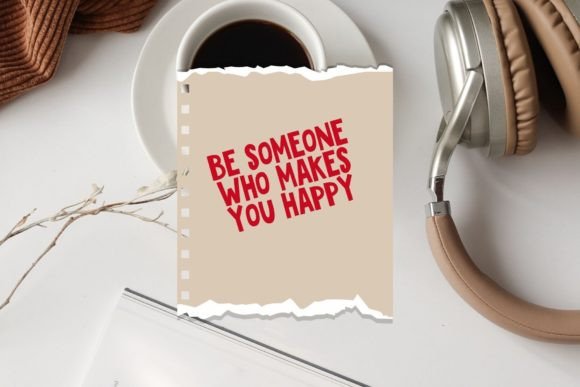
Introduction to Slivia Dilson Font
Remember that moment when you stumbled upon the perfect font for your creative project? The one that instantly elevates your design from ordinary to extraordinary? For many designers, that moment is what makes the hard work worth it. And today, we’re excited to share with you the Slivia Dilson Font – a game-changing display typeface that’s sure to bring a smile to your face and a touch of magic to your designs.
As a valuable resource for designers, the Slivia Dilson Font is a high-quality, free download that’s perfect for adding a dash of whimsy to your next creative project. With its transparent background and PUA encoding, you’ll have unrestricted access to customize your designs with ease. Whether you’re rebranding, creating packaging, or crafting a romantic wedding invitation, this delightful font is sure to leave a lasting impression.
Key Features of Slivia Dilson Font
- High-quality design resource ideal for creative projects, offering a unique and stylish aesthetic.
- Includes a transparent background, allowing for easy integration into various design elements.
- Features a clean and modern design, perfect for use in logos, branding, and other creative projects.
- Perfect for designers looking for a high-quality, free design resource to enhance their creative projects.
Honest Review: Slivia Dilson Font
As a designer, I’m always on the lookout for high-quality design resources to elevate my creative projects. Recently, I stumbled upon the Slivia Dilson Font, and I must say, it’s a fantastic addition to any design arsenal.
- Unique and elegant design style that adds a touch of sophistication to any project
- High-quality vector graphics ensure crisp and clear text rendering
- Transparent background makes it easy to use in various design contexts
- May not be suitable for extremely bold or italic text due to font limitations
- No comprehensive character set, which may require additional fonts for specific characters
Overall, the Slivia Dilson Font is a fantastic design resource that I’d highly recommend for creative projects. Its unique design style, high-quality graphics, and transparent background make it a versatile and valuable addition to any designer’s toolkit. While it may have some limitations, it’s a solid choice for designers looking for a free and elegant font.
Getting the Most Out of Slivia Dilson Font
To get the most out of the Slivia Dilson Font, use it in combination with other design elements, such as graphics and images, to create a visually appealing design. Also, experiment with different font sizes and styles to add emphasis and hierarchy to your design.
The Slivia Dilson Font is a versatile design resource that can be used in a variety of creative projects, including logos, brochures, posters, and websites. Its transparent background makes it easy to use in combination with other design elements.
Can I customize the Slivia Dilson Font to fit my specific design needs, or is it a fixed design resource?
While the Slivia Dilson Font is a high-quality design resource, it’s not typically customizable. However, you can experiment with font pairing, adjusting font sizes, and using the font with a transparent background to create unique design effects. This flexibility allows designers to get creative and adapt the font to their specific project requirements.